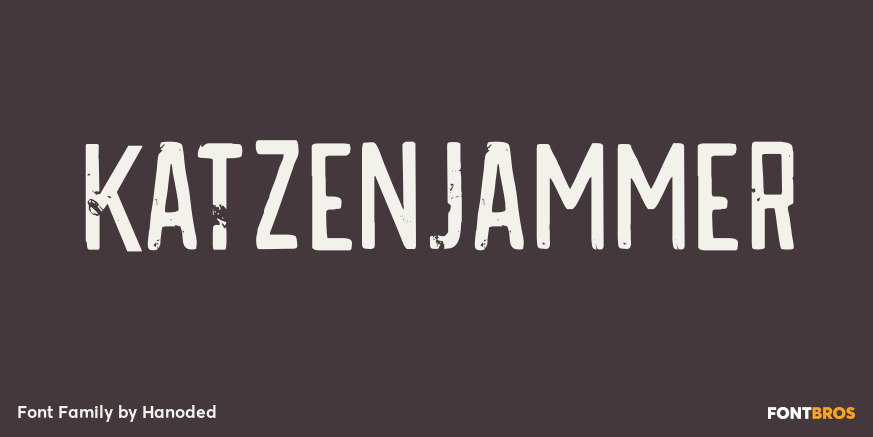
About Katzenjammer
Katzenjammer is a German word meaning ?Cat\’s Wail? – it is used to describe a hangover. Katzenjammer font is a slightly eroded, squarish typeface, which would be ideal for headlines, packaging, posters and websites. This all caps font comes with different…